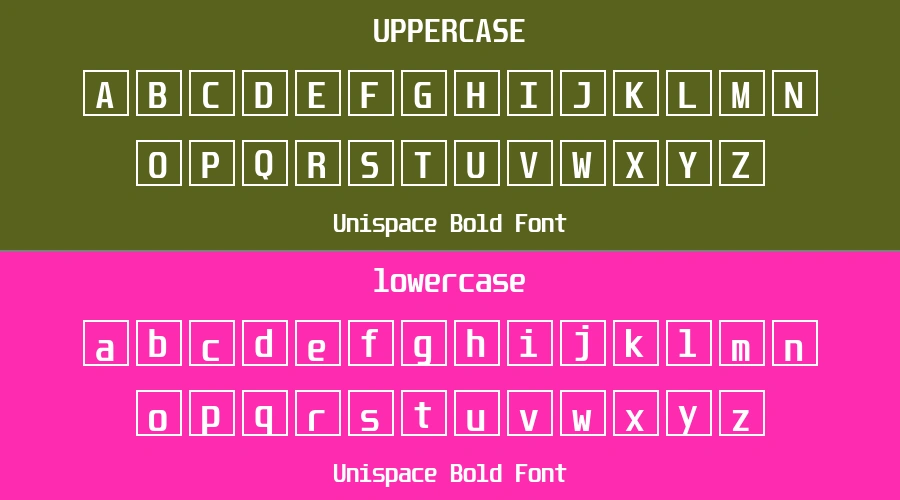
About Unispace Bold Font
Unispace Bold Font embodies typographic excellence through its masterful combination of concave curves and artistic impact. Created for wayfinding systems, this typeface delivers exceptional functionality and professional authority across all applications. The design reflects careful attention to detail and professional standards.
Advanced capabilities include distinctive playful elements and versatile beginning forms, giving designers creative control. When used in image captions, Unispace Bold Font exhibits remarkable brand recognition. The harmonious balance between ascender height and cultural relevance sets this typeface apart.